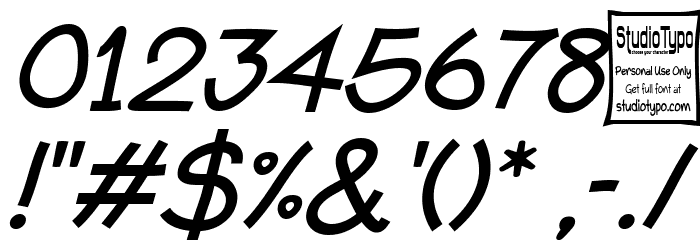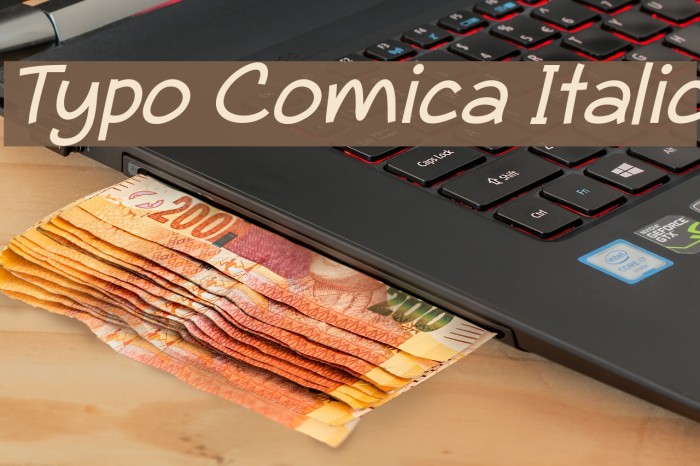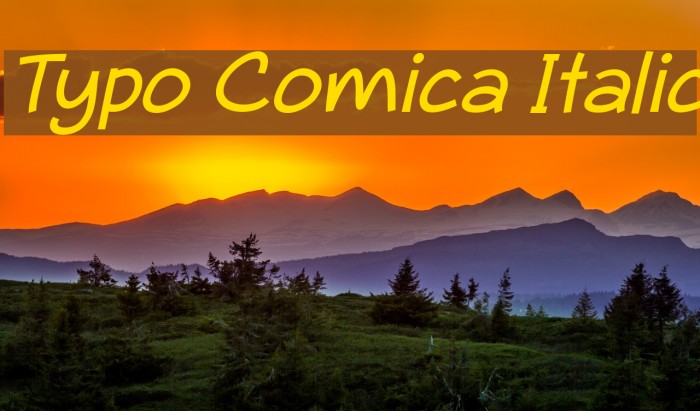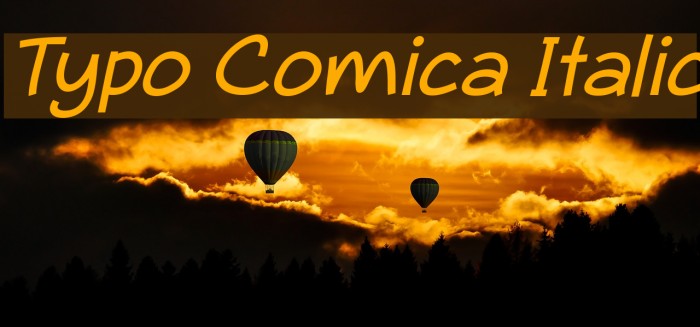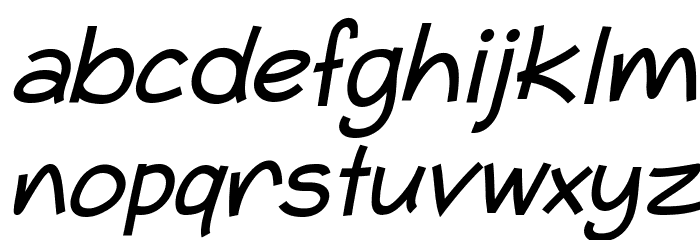
Typo Comica Italic Font
This font features a playful and dynamic style, characterized by its slanted, italicized form. The letters have a handwritten, comic-like appearance, with smooth curves and a casual, informal vibe. The strokes are consistent in thickness, providing a uniform look across all characters. The font includes a full set of uppercase and lowercase letters, numbers, and a variety of special characters, making it versatile for different uses. Its lively and energetic design makes it suitable for projects that require a fun and approachable aesthetic.
A playful, italicized font with a comic-like, handwritten style.
• Proposed Projects: Ideal for comic books, children's books, playful branding, and casual invitations.
• Overall Style: Playful
• Use Case: Headlines, Logos, Informal Text